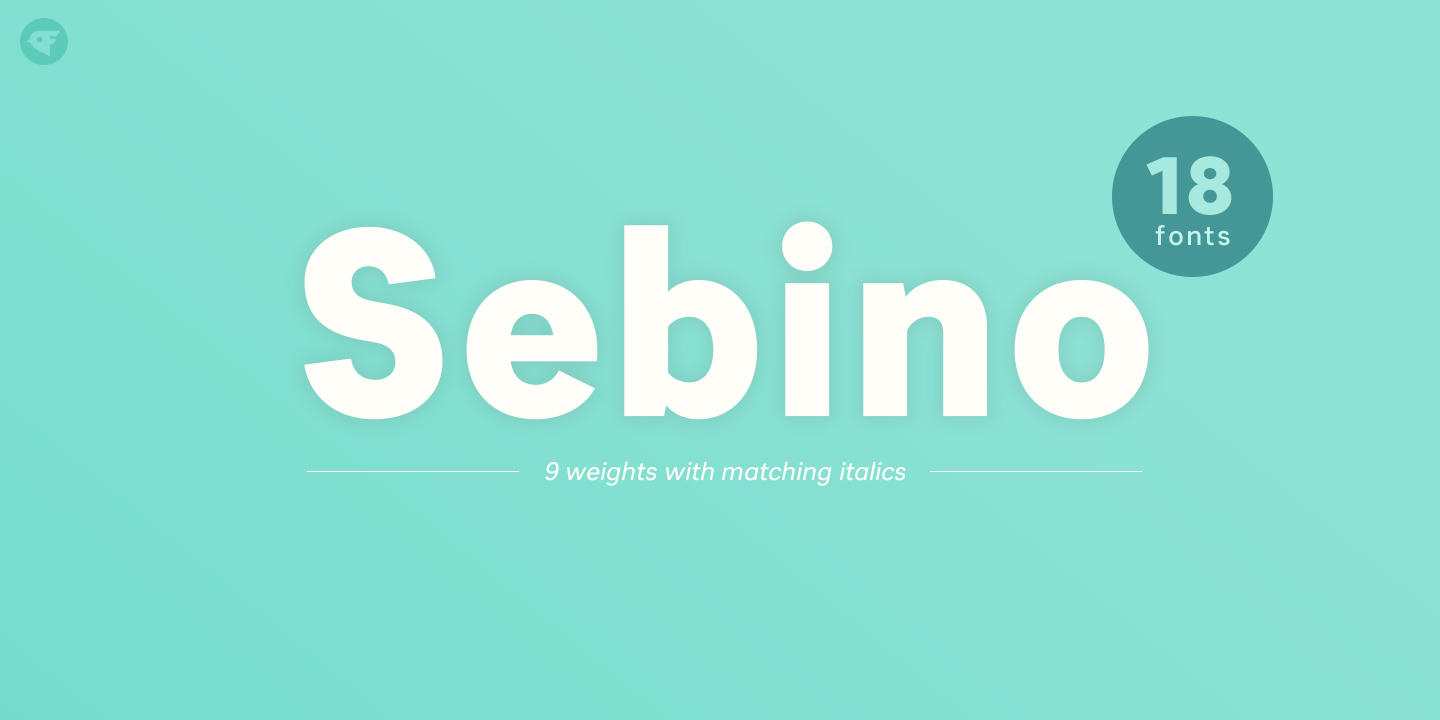
Sebino Font Free Download is a fantastic choice for designers seeking a modern, versatile typeface. Please note that you must purchase this font for commercial use. You can download it for free for testing purposes. This font shines in various applications, including branding, logos, posters, and digital interfaces, offering a clean and professional look. Its sleek design makes it exciting, providing a contemporary aesthetic that elevates any project with sophistication. The Sebino Font family includes Regular, Bold, Italic, and Light variations, catering to diverse design needs.
Elevate your creative projects with Sebino Font Free Download, a typeface that combines elegance and functionality. Its minimalist yet striking style ensures readability while adding a modern flair. Whether you're designing a website, crafting marketing materials, or creating eye-catching headlines, Sebino Font adapts effortlessly. Its smooth curves and balanced proportions make it a go-to for designers aiming to stand out. With its range of weights and styles, this font offers flexibility for both print and digital media. Download it today to explore its potential and enhance your designs with a professional touch.